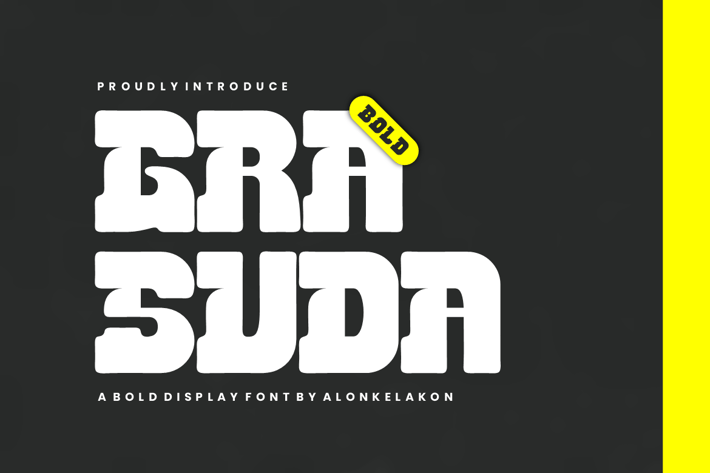
Grasuda Sport Font
Grasuda Sport Font Font is unique . Ready to use for your design like labeling, movie sceen, poster, movie title, gigs, album covers, logos, and much more.